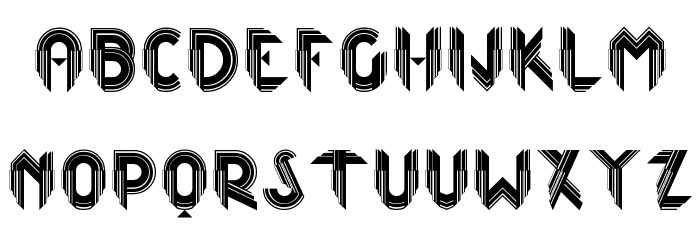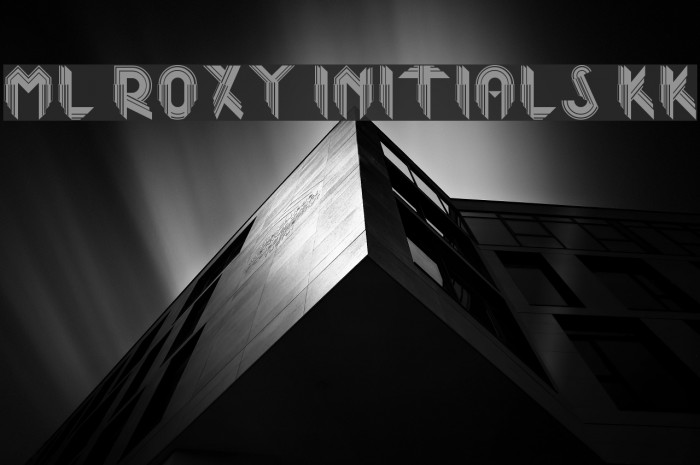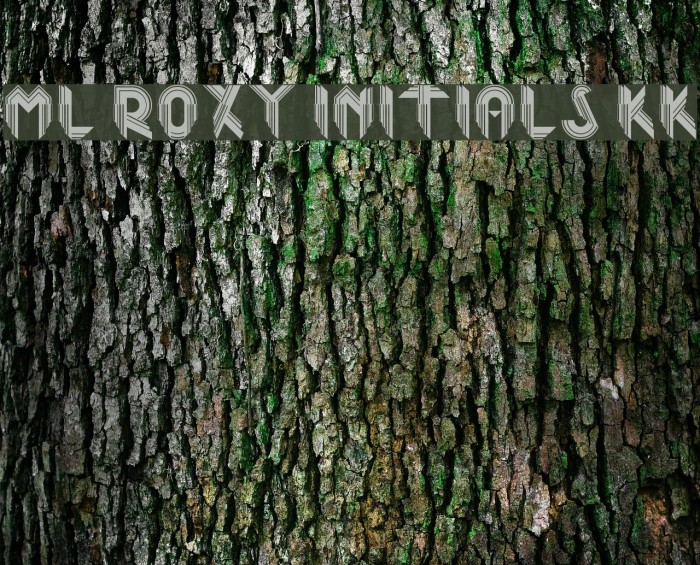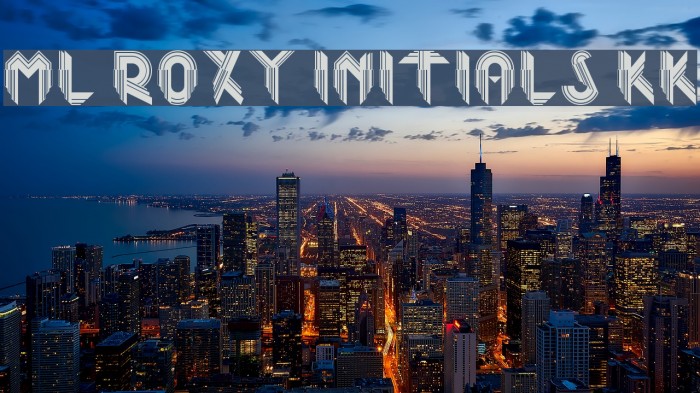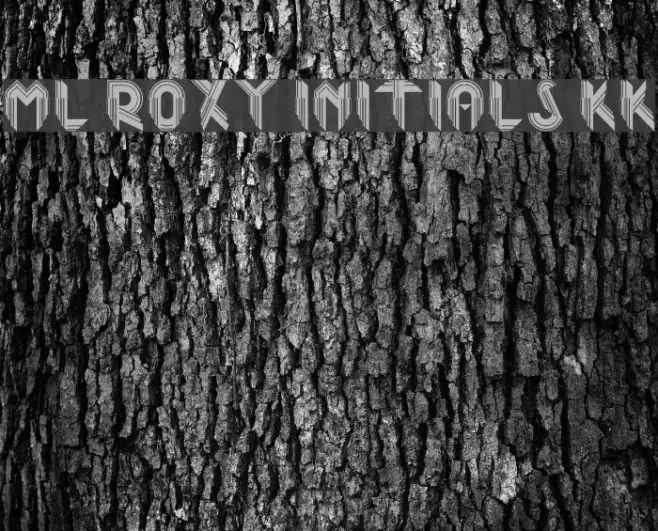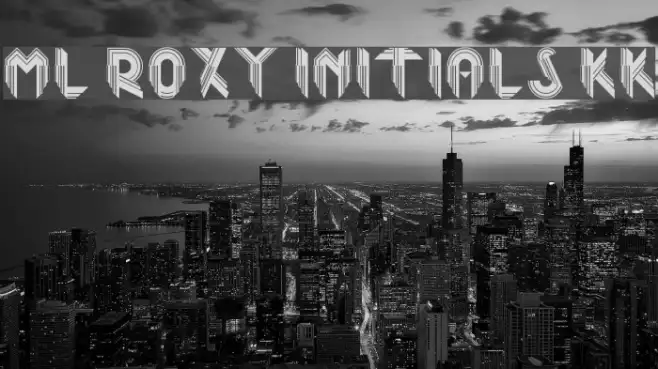
ML Roxy Initials KK Font
This font features a bold, geometric design with a strong Art Deco influence. Each character is constructed with multiple parallel lines, creating a sense of depth and dimensionality. The angular shapes and sharp edges give it a futuristic and dynamic appearance, while the consistent line work maintains a cohesive look across all characters. The font's unique style makes it stand out, ideal for projects that require a distinctive and eye-catching typeface.
A bold, geometric font with Art Deco influences and strong visual impact.
- Proposed Projects: Ideal for branding, posters, album covers, and any design work that requires a bold, statement-making typeface.
- Overall Style: Modern, Art Deco